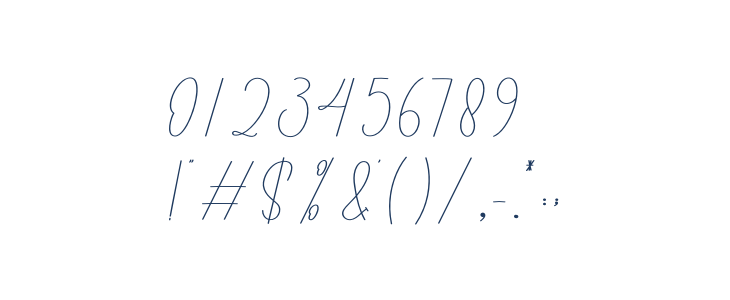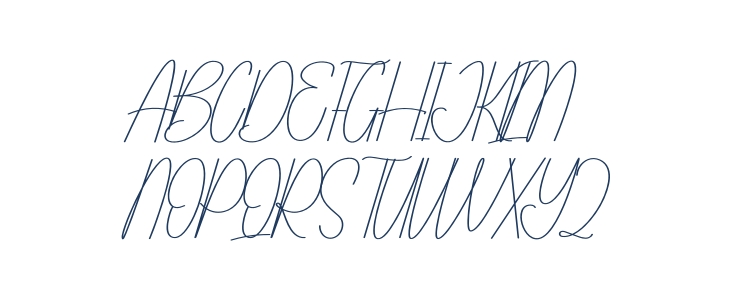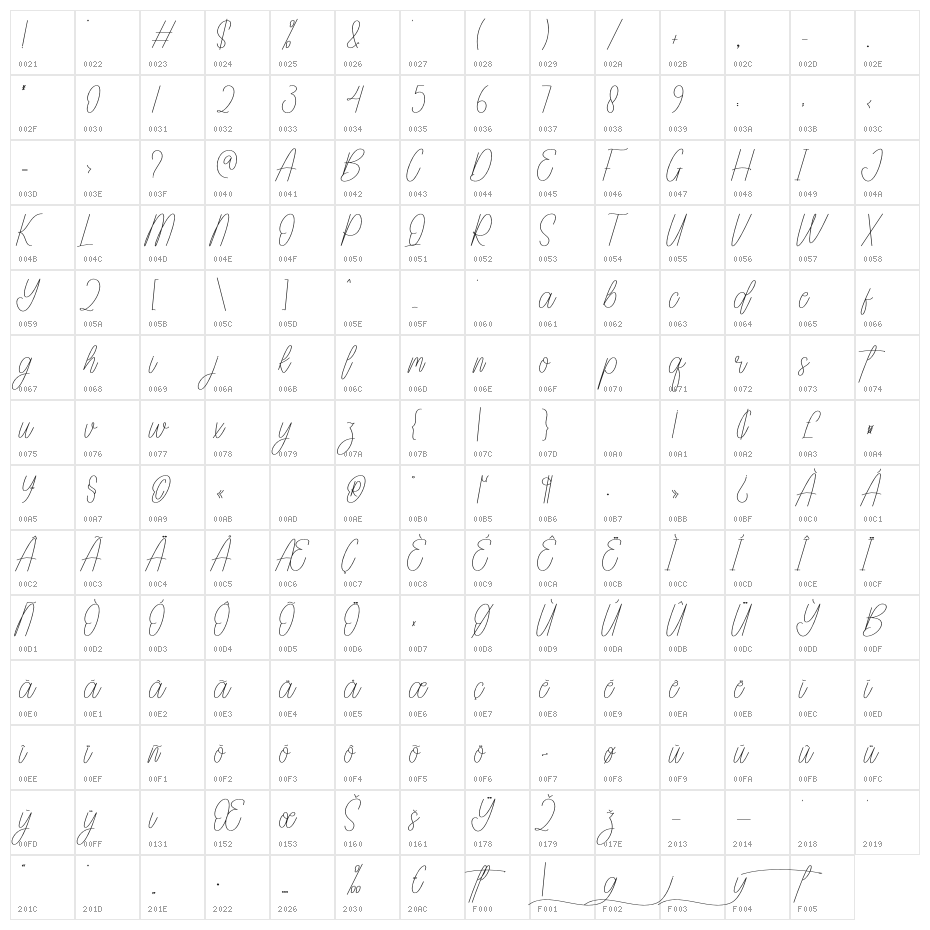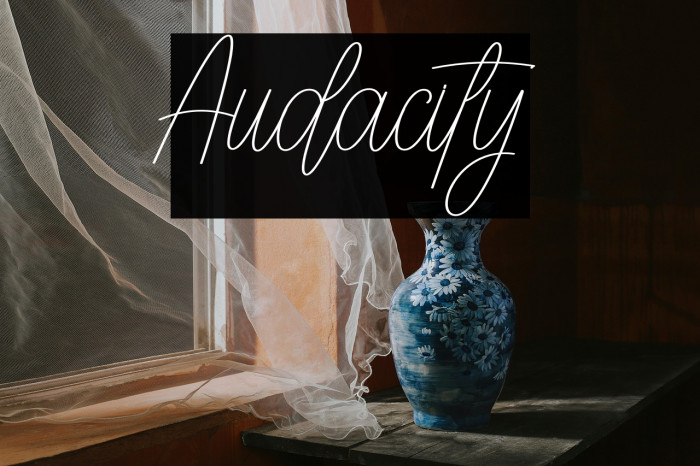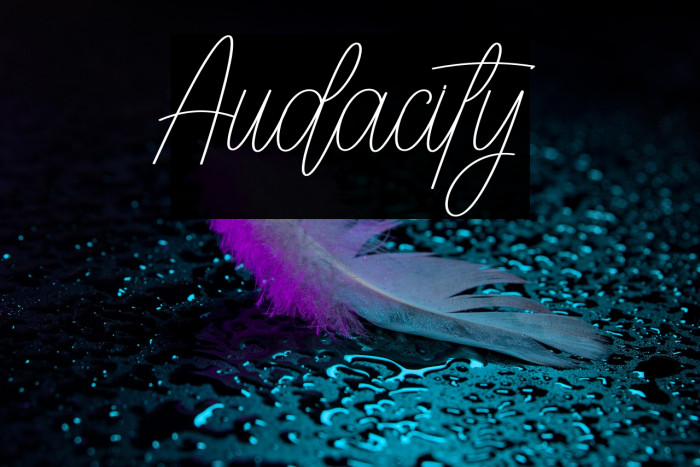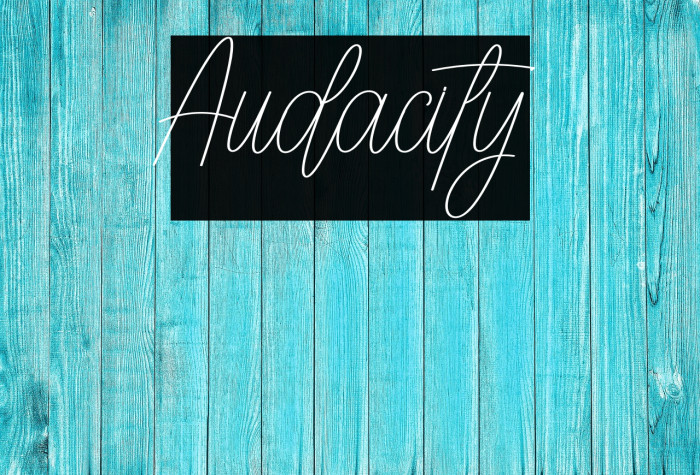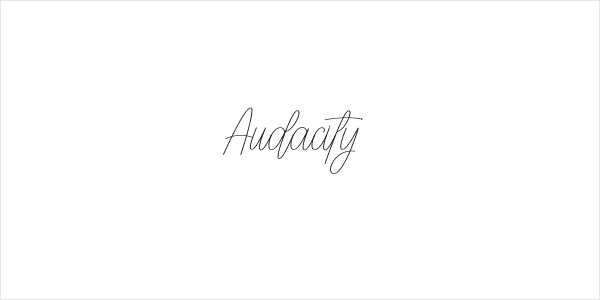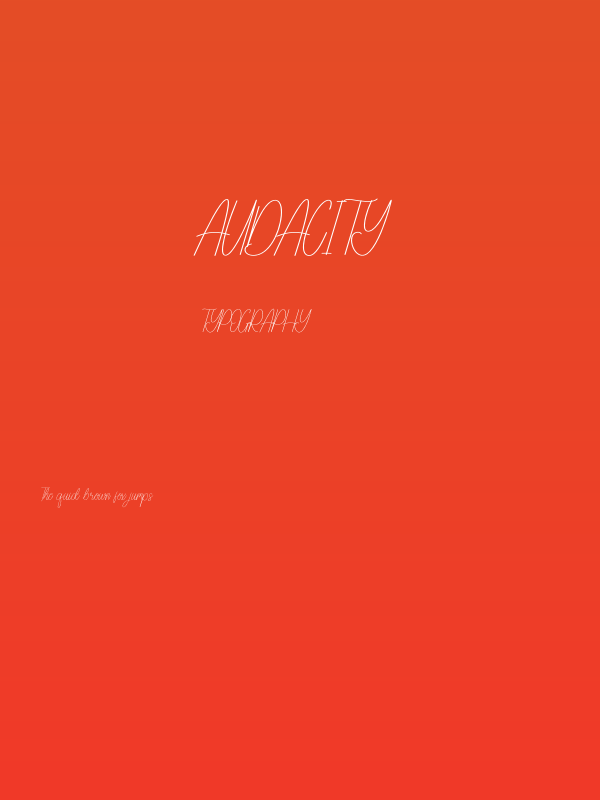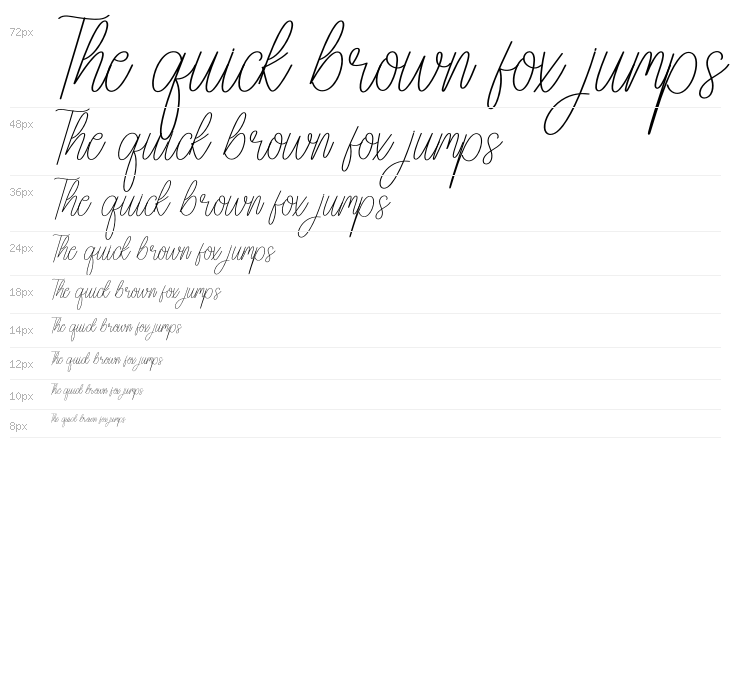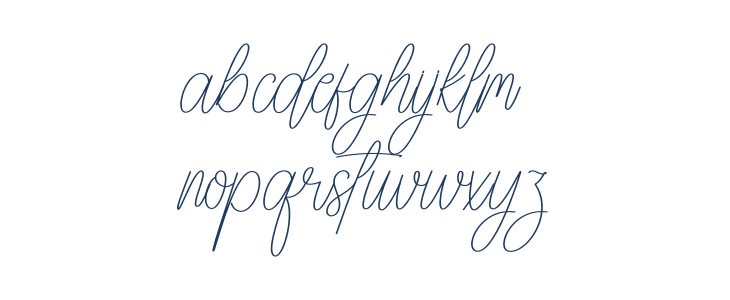
Audacity Font
Audacity Description
A tall, narrow script font with a handwritten, calligraphic style, featuring thin strokes and high contrast between ascenders and descenders. The characters are connected in a flowing manner, giving an elegant and expressive appearance.
| Overall Style | Decorative, Elegant, Artistic |
| Use Case | Logos, Invitations, Decorative text, Artistic projects |
| Proposed Projects | Invitations, greeting cards, personal branding, artistic posters, quotes, and decorative headings. |